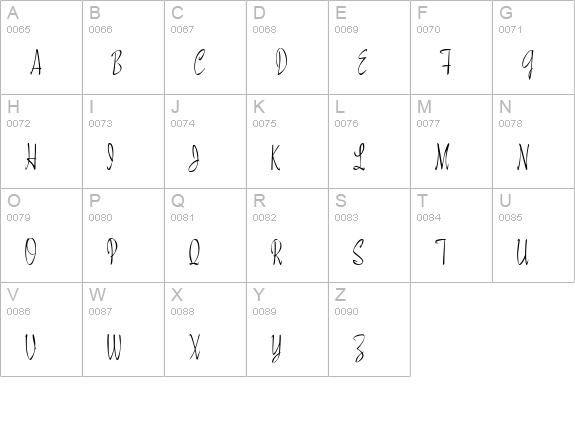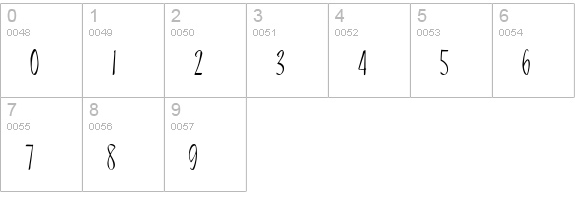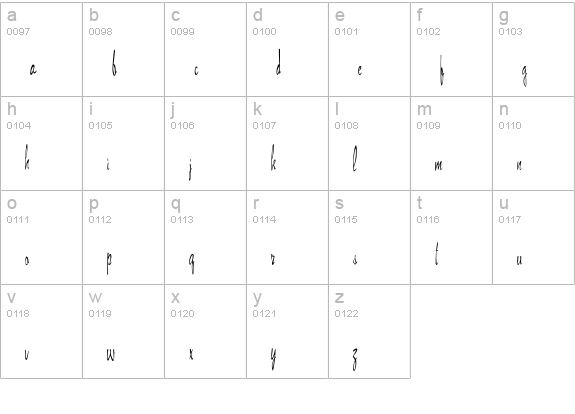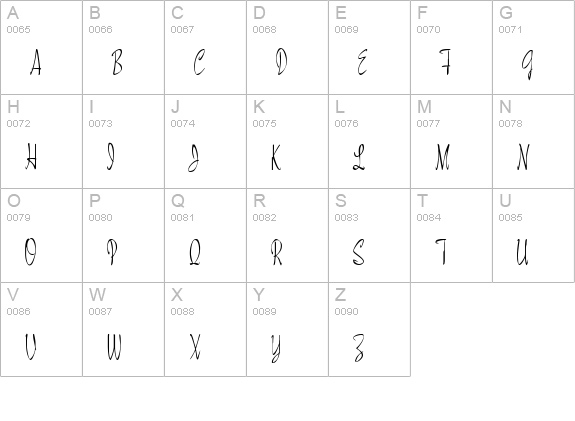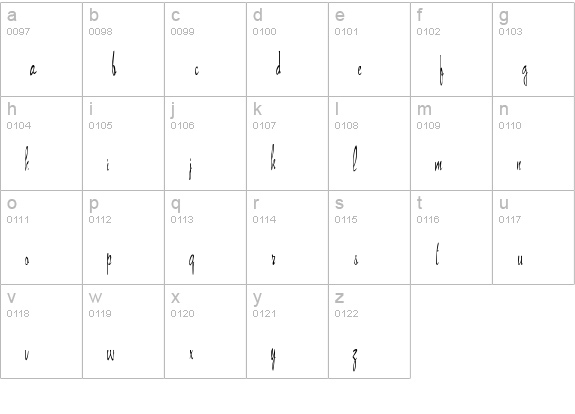
MaidstoneScript Font Details
MaidstoneScript is a beautifully designed font that exudes elegance and sophistication. With its delicate and flowing script, this typeface brings a touch of refinement to any project. The smooth curves and graceful strokes create a sense of movement, making it perfect for wedding invitations, branding, and other creative endeavors. But what sets MaidstoneScript apart is not just its stunning aesthetics, but also the fact that it is available for free. Yes, you read that right - this incredible font can be downloaded at absolutely no cost. Whether you're a professional designer or an aspiring artist, MaidstoneScript offers you the opportunity to enhance your work without breaking the bank. To get your hands on this amazing font, simply head over to FontsMarket.com. There, you'll find the free download link, allowing you to easily incorporate MaidstoneScript into your designs. Don't miss out on this fantastic opportunity to elevate your projects with a font that is both visually captivating and freely accessible. Download MaidstoneScript today and let your creativity soar.